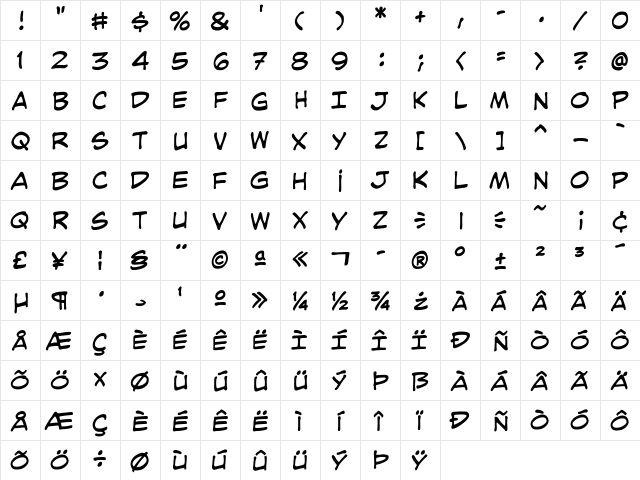
John Doe Regular
Design Context for John Doe Typeface
John Doe is a composed and adaptable typeface that performs quietly and consistently across a wide range of design contexts.